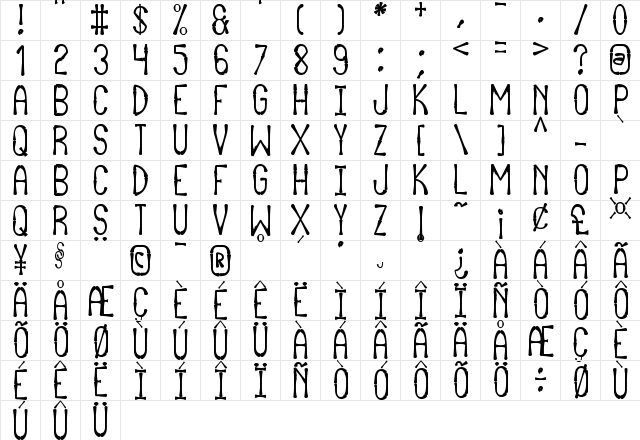
Afrika Safari Rebuild St Regular
Design Context for Afrika Safari Rebuild St Typeface
Afrika Safari Rebuild St is a composed and adaptable typeface that performs quietly and consistently across a wide range of design contexts.
Pro Tip: Use Afrika Safari Rebuild St in both headline and body roles to test its range before committing to a single application.